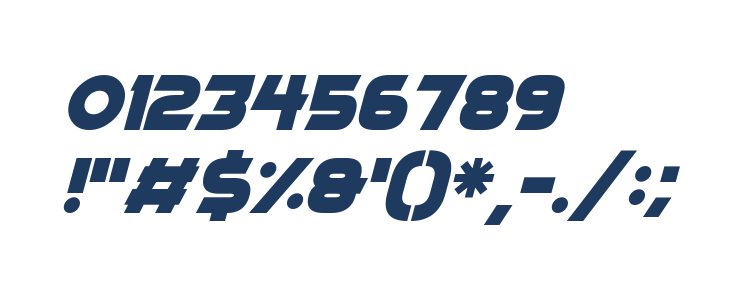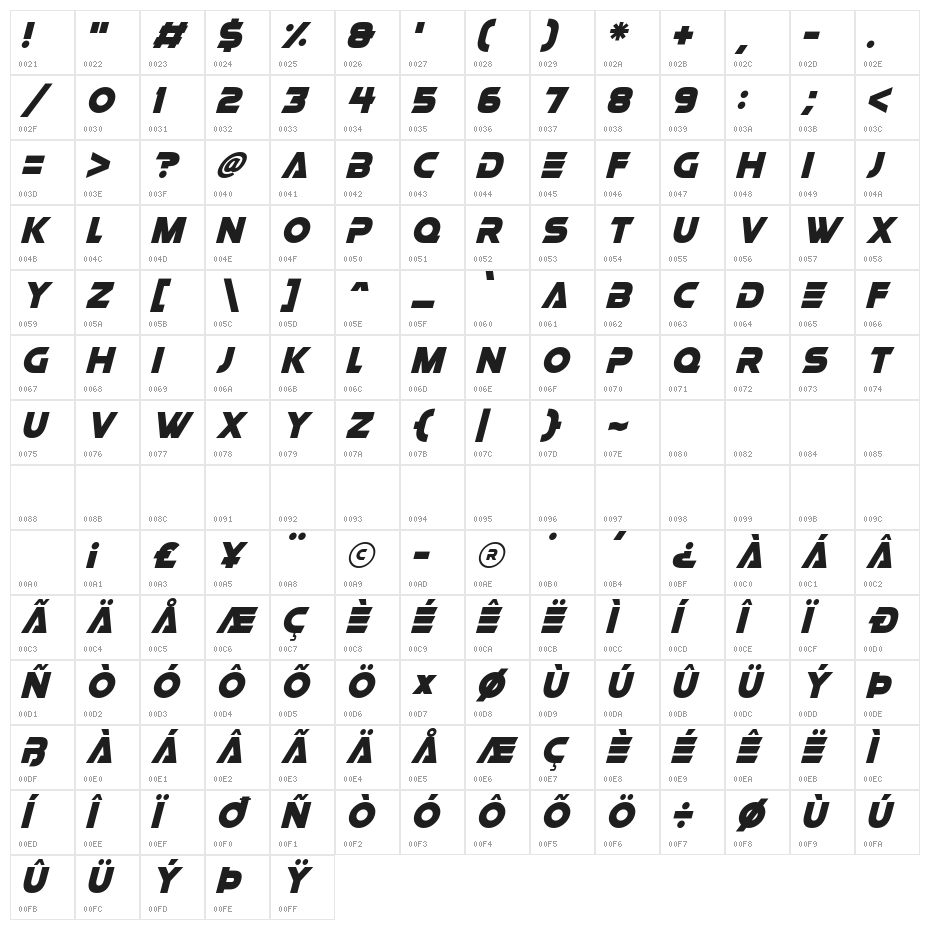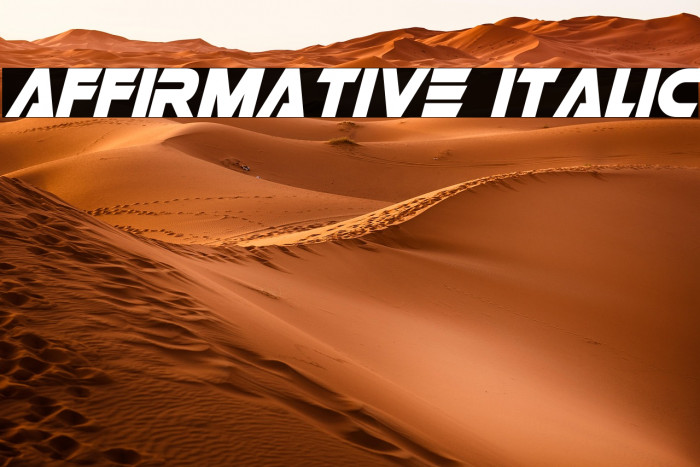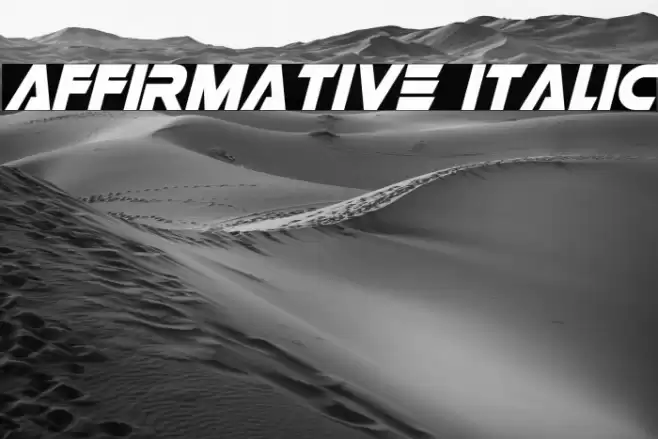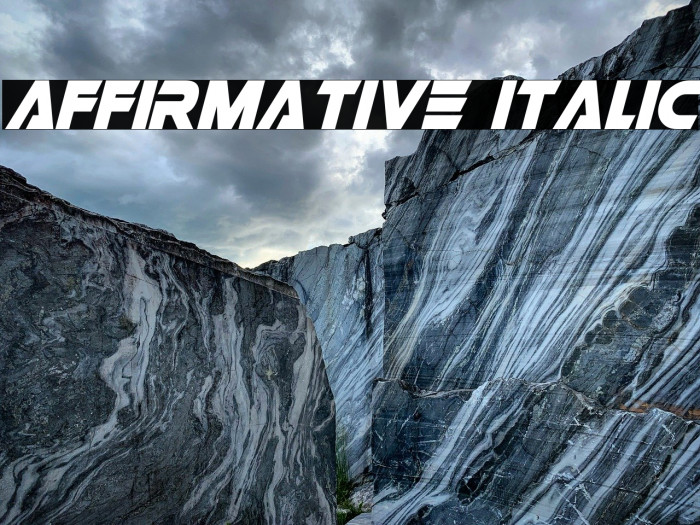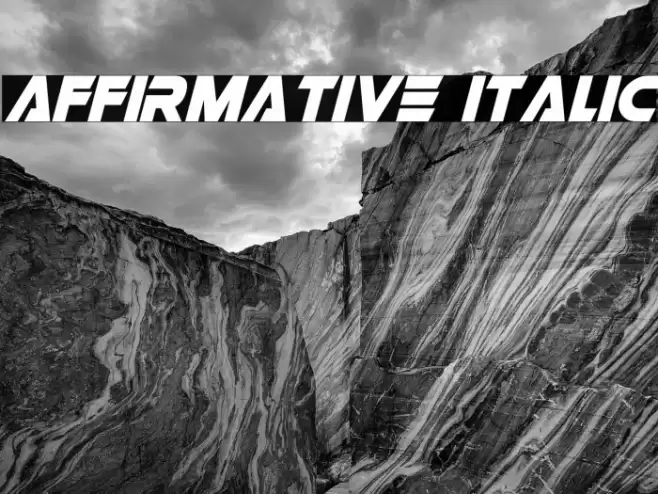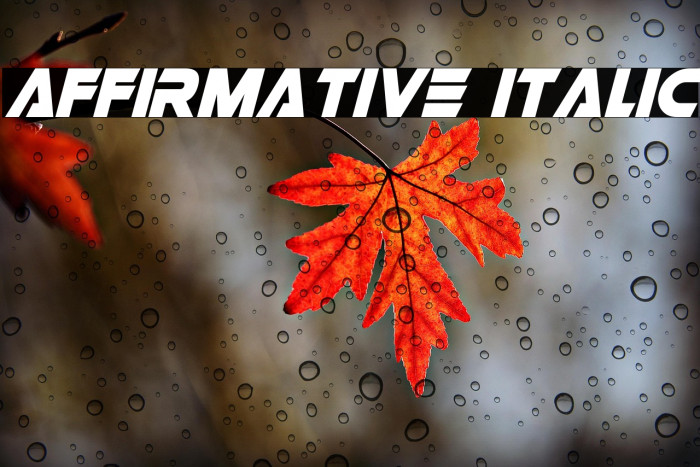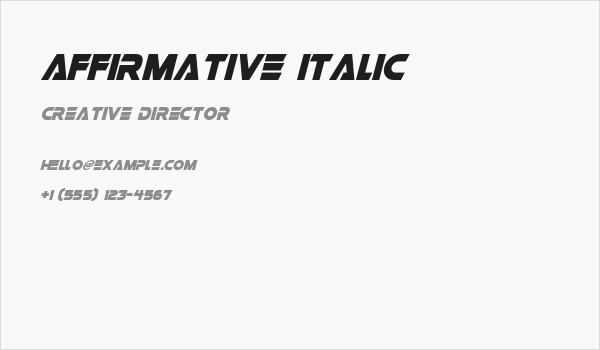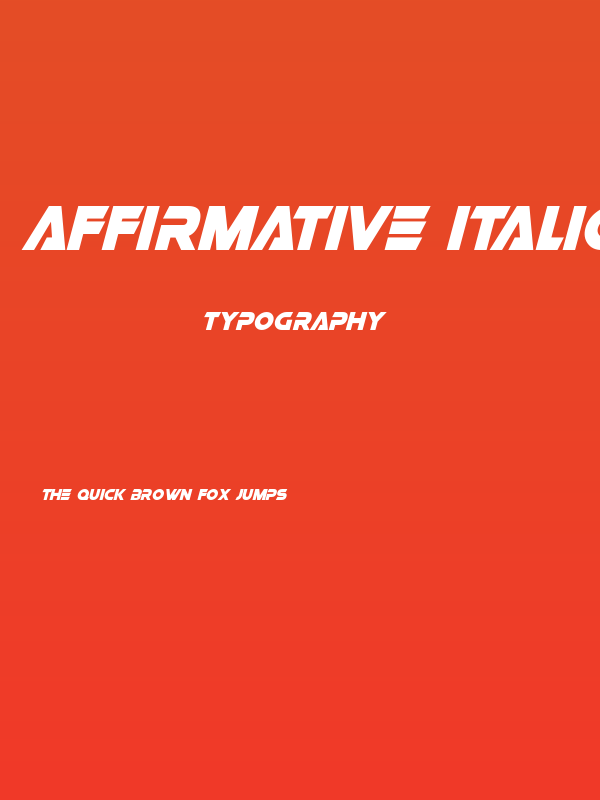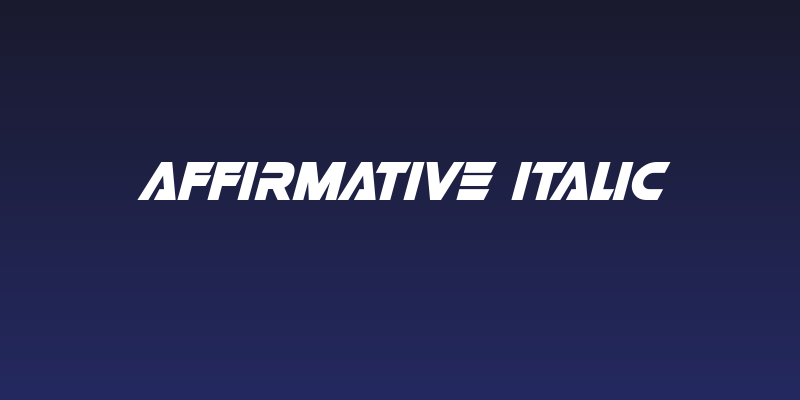
Affirmative Italic Font
Affirmative Italic Description
This font features a bold, italicized style with a strong, dynamic presence. The characters are slanted, giving a sense of motion and speed, which is further emphasized by the thick, uniform strokes. The design is modern and sleek, with a futuristic appeal that makes it stand out. The uppercase letters are particularly striking, with sharp angles and a geometric structure. The numbers and special characters maintain the same boldness and angularity, ensuring consistency throughout. This font is ideal for projects that require a bold statement and a contemporary look.